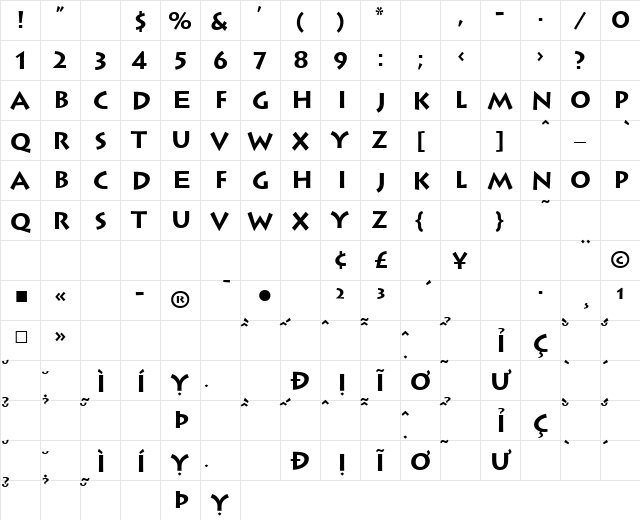
VNI-Lithos Bold Font Preview
VNI-Lithos Bold
Design Context for VNI-Lithos Typeface
VNI-Lithos is a composed and adaptable typeface that performs quietly and consistently across a wide range of design contexts. Its bold stroke weight gives it real presence on the page.